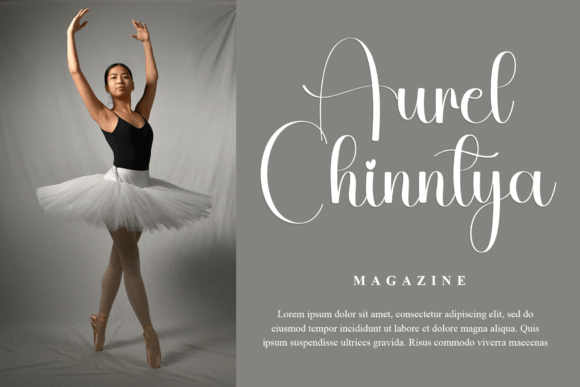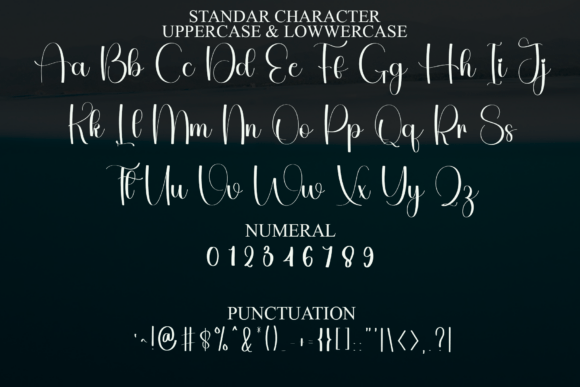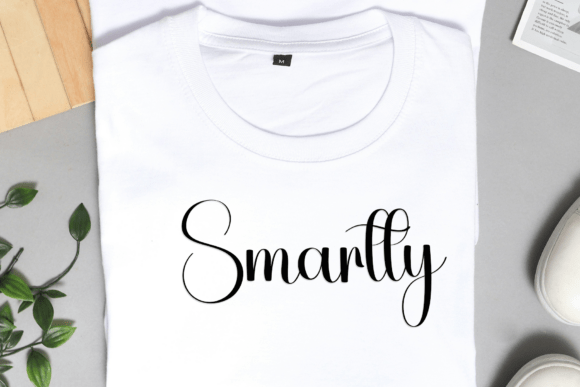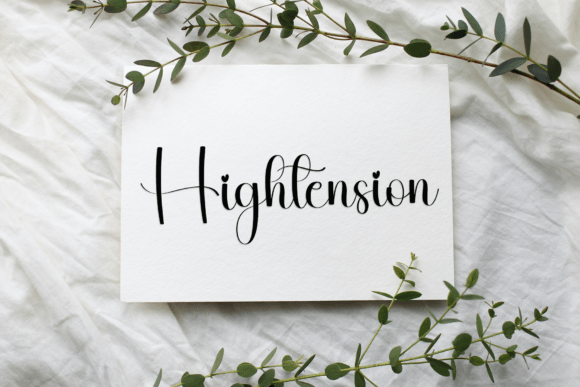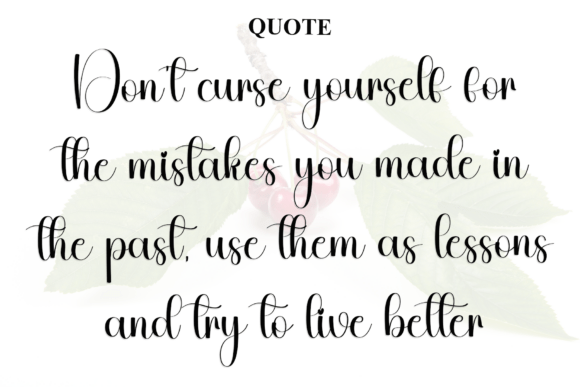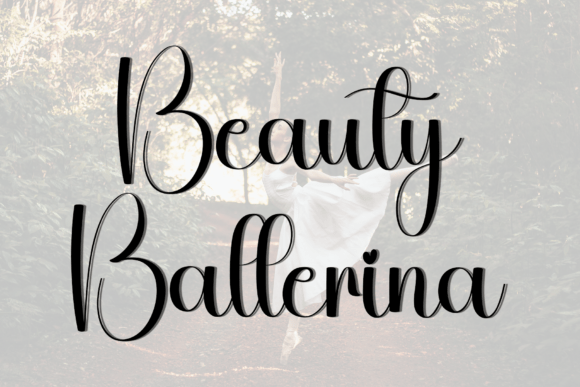
Introduction to Ballerina Font
Do you remember the joy of decorating the house for the holiday season as a child? The twinkling lights, the festive decorations, and the excitement of unwrapping gifts on Christmas morning. For many designers, that same sense of wonder and magic can be captured in their creative projects with the right design resource. One such resource is the enchanting Ballerina Font, a festive and merry typeface that embodies the spirit of the holiday season.
With its whimsical flair and decorative elements, Ballerina Font adds a touch of enchantment to your designs, making it perfect for greeting cards, gift tags, and holiday-themed projects. Whether you’re working on a creative project that requires a high-quality design or simply want to add a personal touch to your holiday cards, this font is a valuable addition to your design arsenal.
Key Features of Ballerina Font
- High-quality design resource ideal for creative projects requiring elegant and sophisticated typography.
- Unique, hand-drawn design elements that can be used to create intricate and detailed designs with a transparent background.
- Perfect for use in various design applications, including digital art, graphic design, and publishing, due to its high-quality and versatile design.
- Unique characteristics include its flowing lines, delicate curves, and intricate details, making it suitable for a range of creative projects.
Honest Review: Ballerina Font
I recently had the chance to work with the Ballerina Font, and I must say it’s been a lovely addition to my design projects. The font itself is a beautiful, elegant script that’s perfect for any creative project that needs a touch of sophistication.
- What works well: ✨ The Ballerina Font is incredibly versatile and can be used in a variety of contexts, from wedding invitations to blog headers. The font’s high-quality design ensures that it looks great even at smaller font sizes.
However, I do have a few limitations to mention. The font is not suitable for use in bold or condensed form, as it can become difficult to read. Additionally, the font’s elegance can sometimes make it feel a bit overused or clichéd in certain contexts.
Overall, I’m quite impressed with the Ballerina Font. While it may not be perfect for every project, it’s a high-quality design resource that’s well worth having in your toolkit. With its elegant design and free download, it’s a great choice for designers looking to add a touch of sophistication to their creative projects.
Tips for Getting the Most Out of Ballerina Font
For the best results, use the Ballerina Font in conjunction with other high-quality design resources. Experiment with different font sizes, colors, and styles to create a unique and eye-catching design.
The Ballerina Font is ideal for use in invitations, greeting cards, and other creative projects where a delicate and elegant touch is required.
Is the Ballerina Font a high-quality font?
Yes, the Ballerina Font is a high-quality font designed to provide a clear and readable experience for users. With its clean and elegant design, the Ballerina Font is an excellent choice for designers looking to add a touch of sophistication to their creative projects. The font is also optimized for use on a variety of devices and platforms, ensuring that it looks great on everything from web pages to print materials.